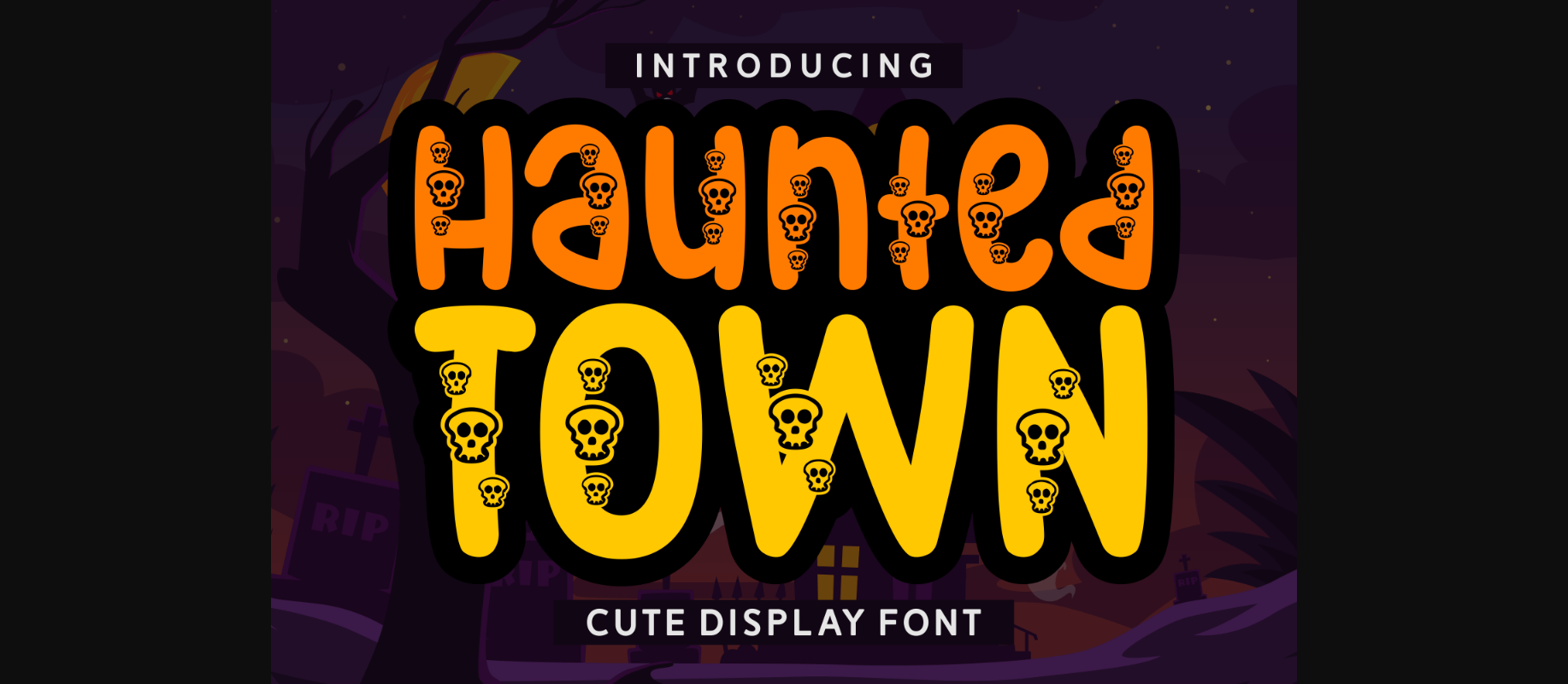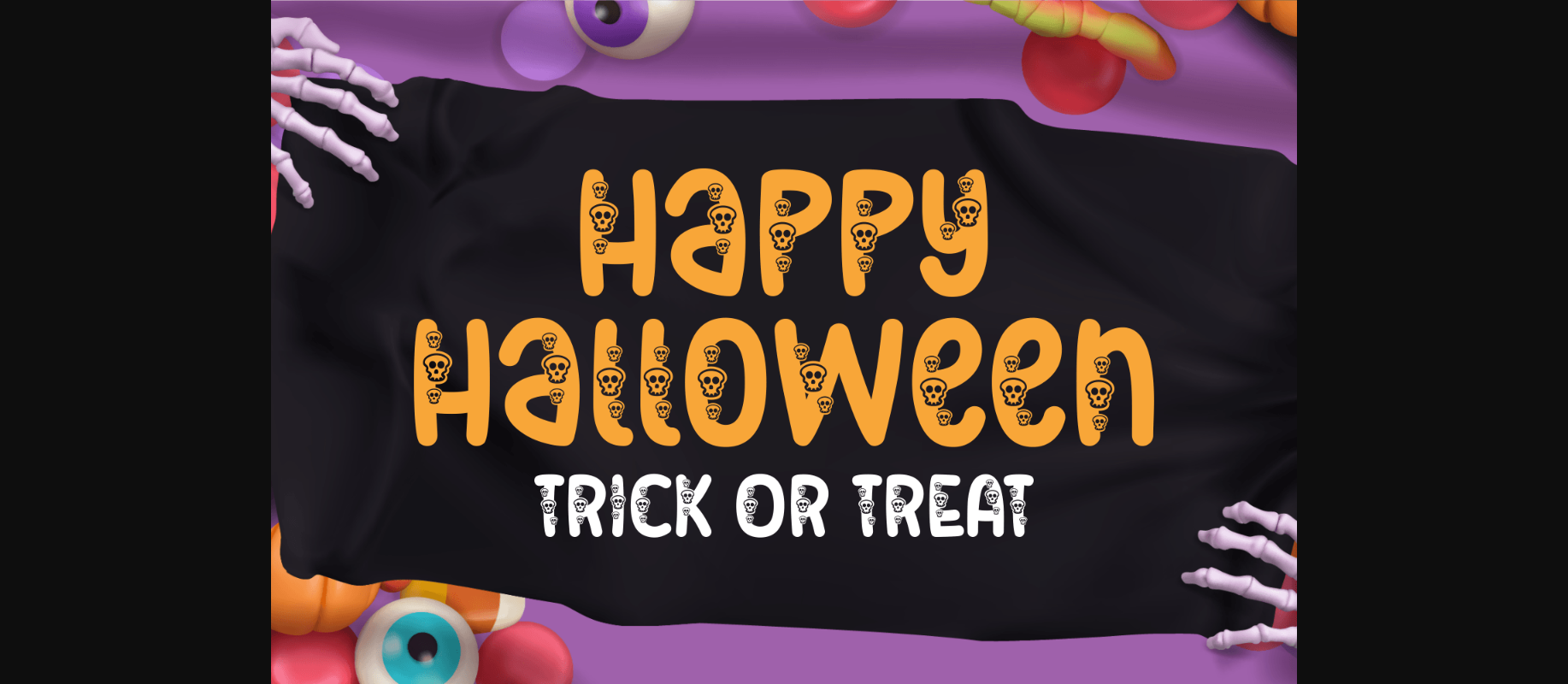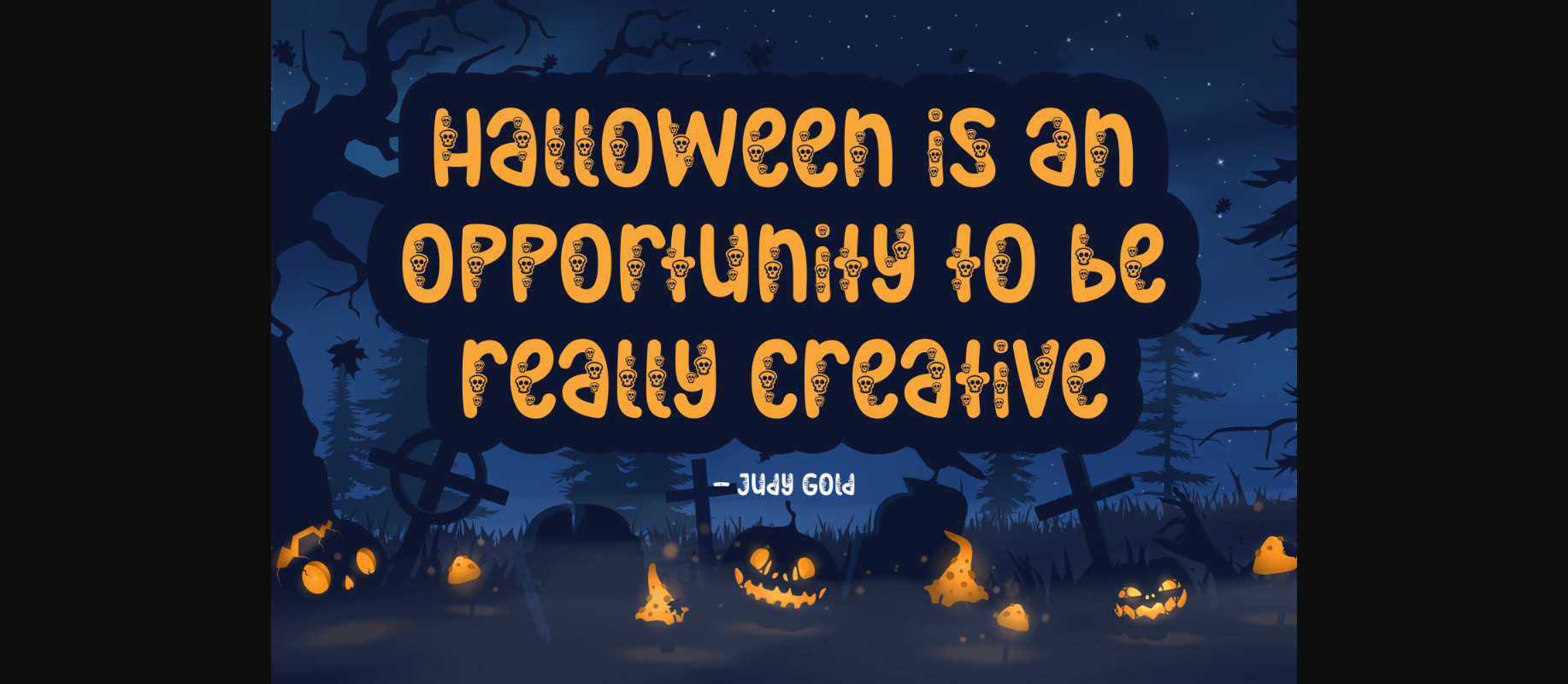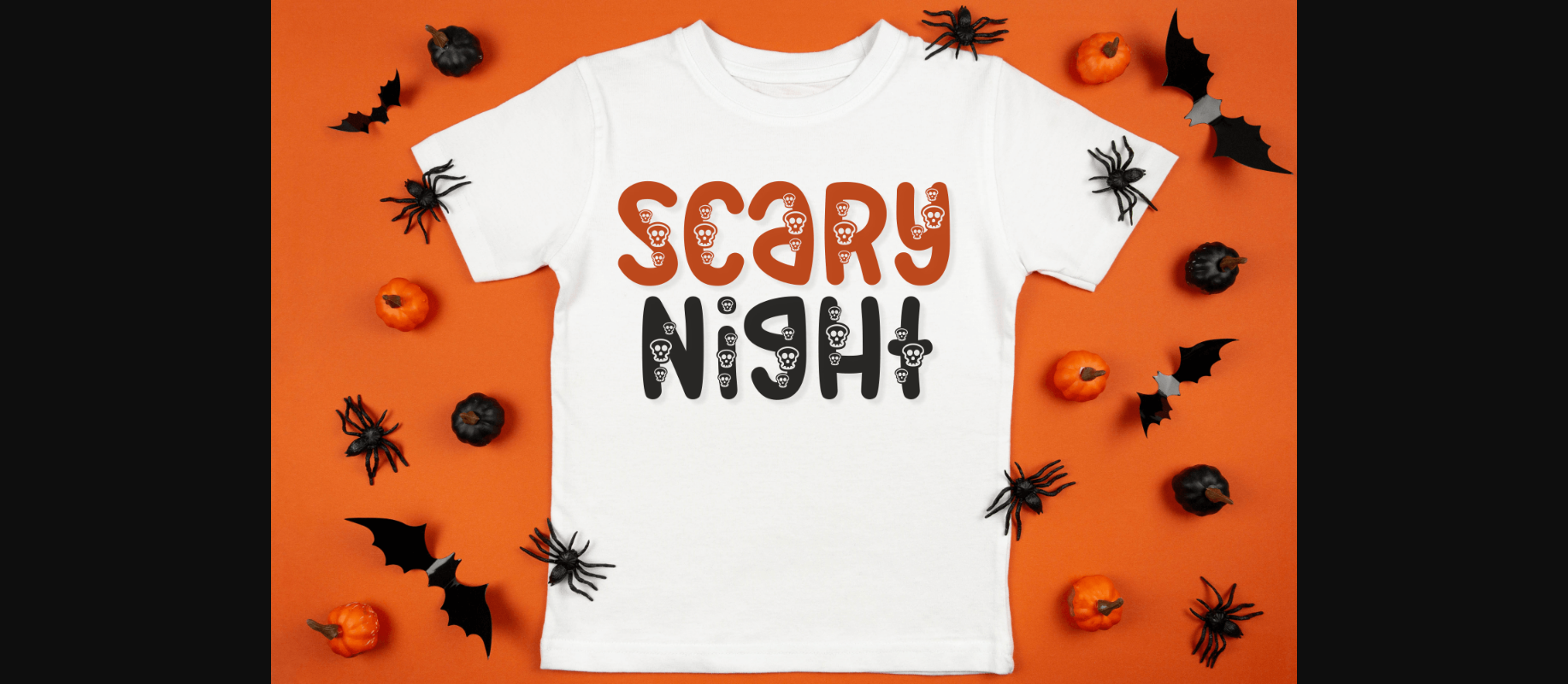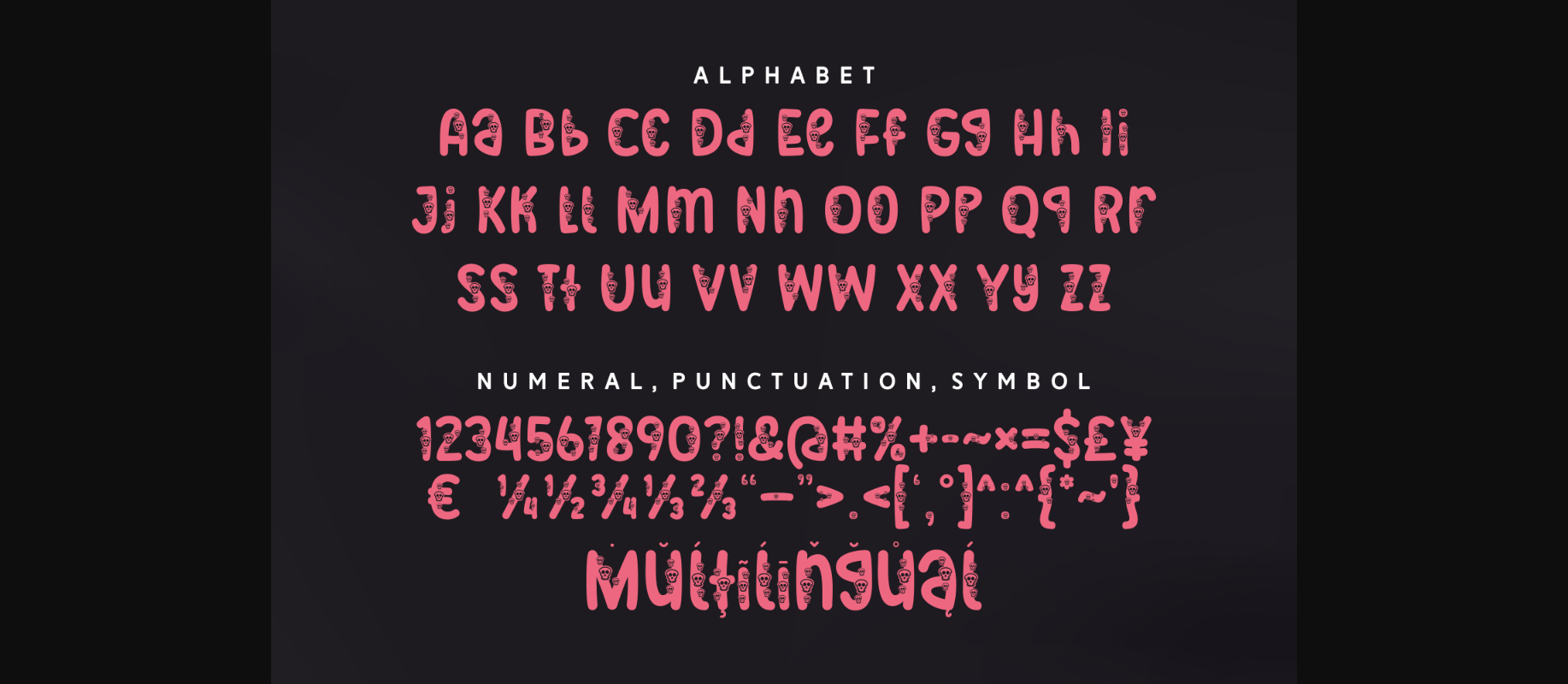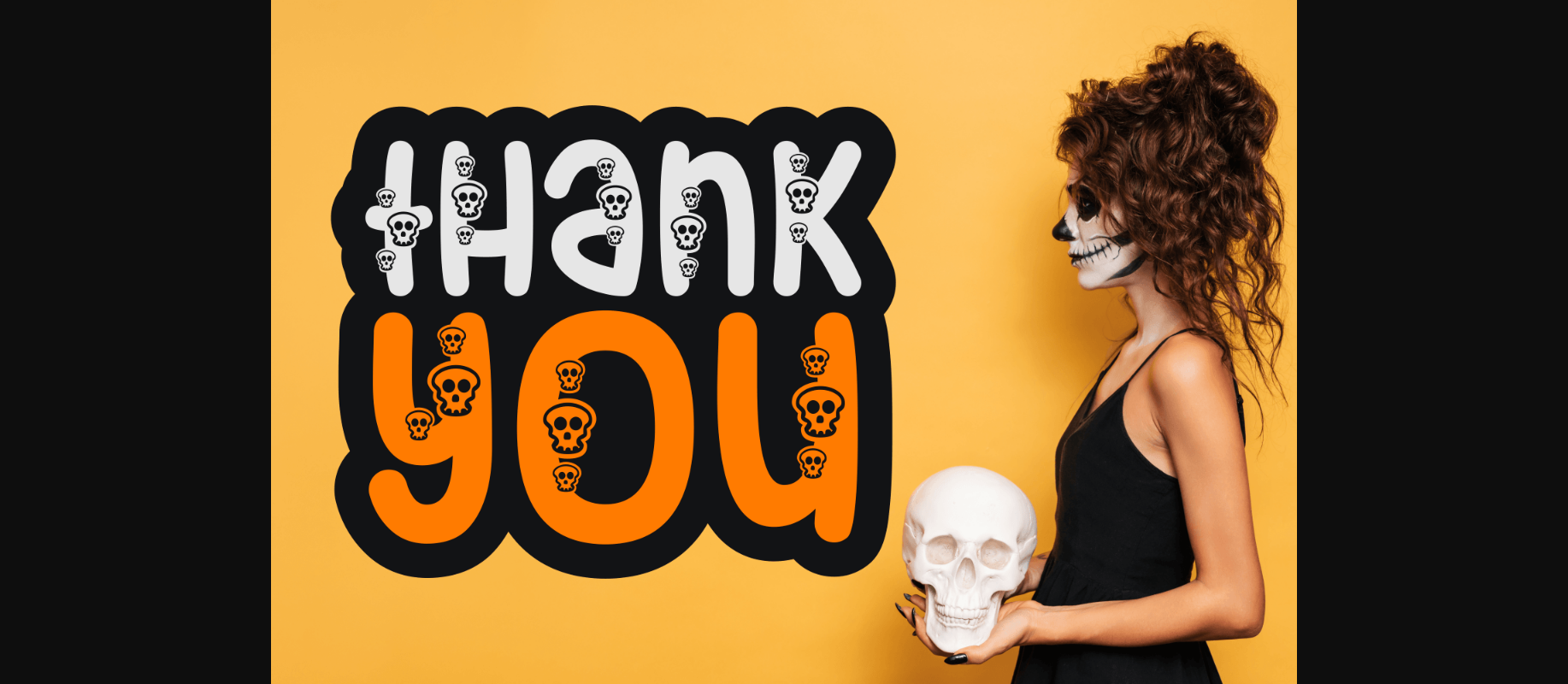
Haunted Town is a spooky yet friendly decorative font. Its cute little skeleton faces that “haunt” every letter will enhance any Halloween project you wish to create!